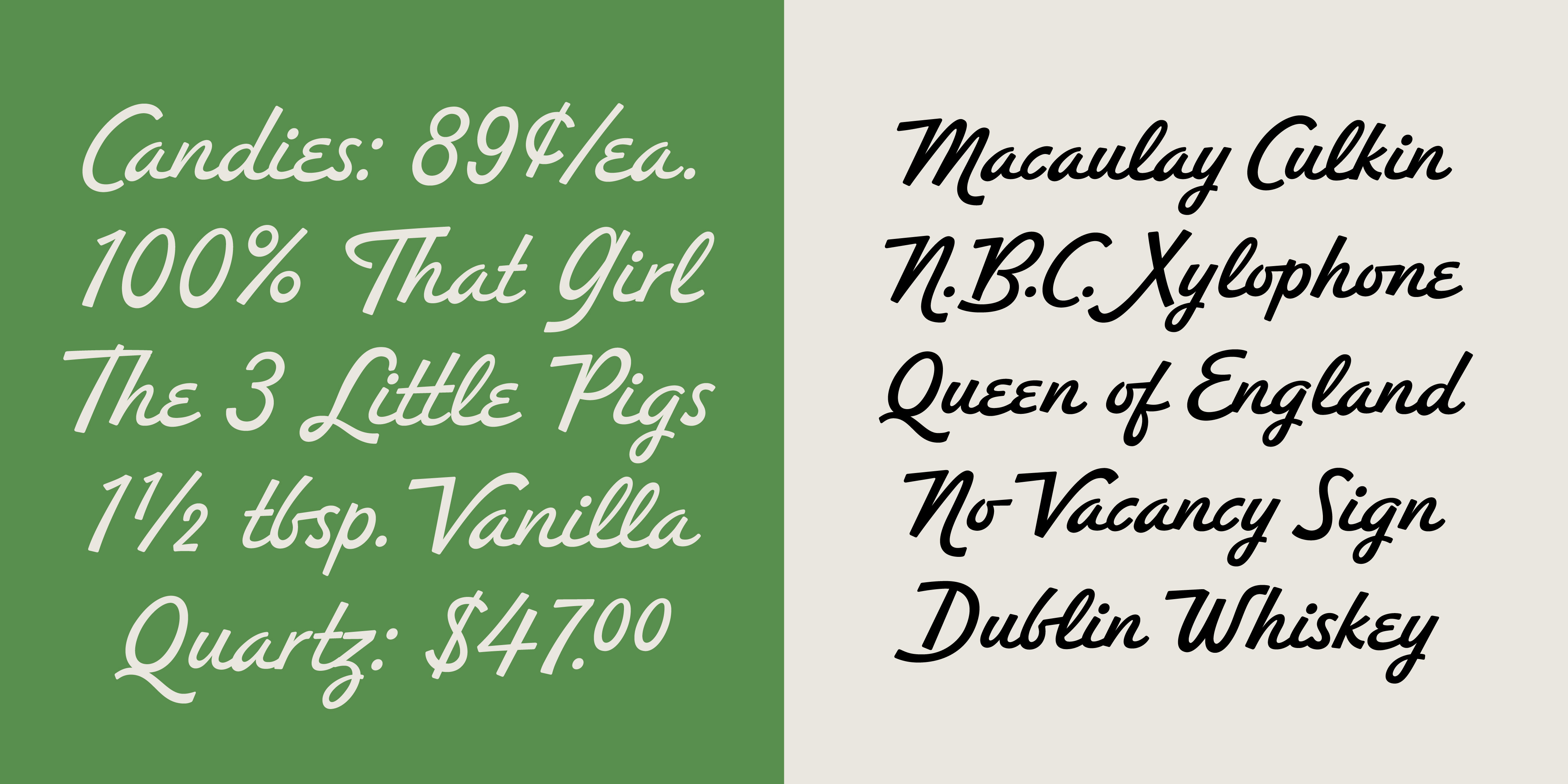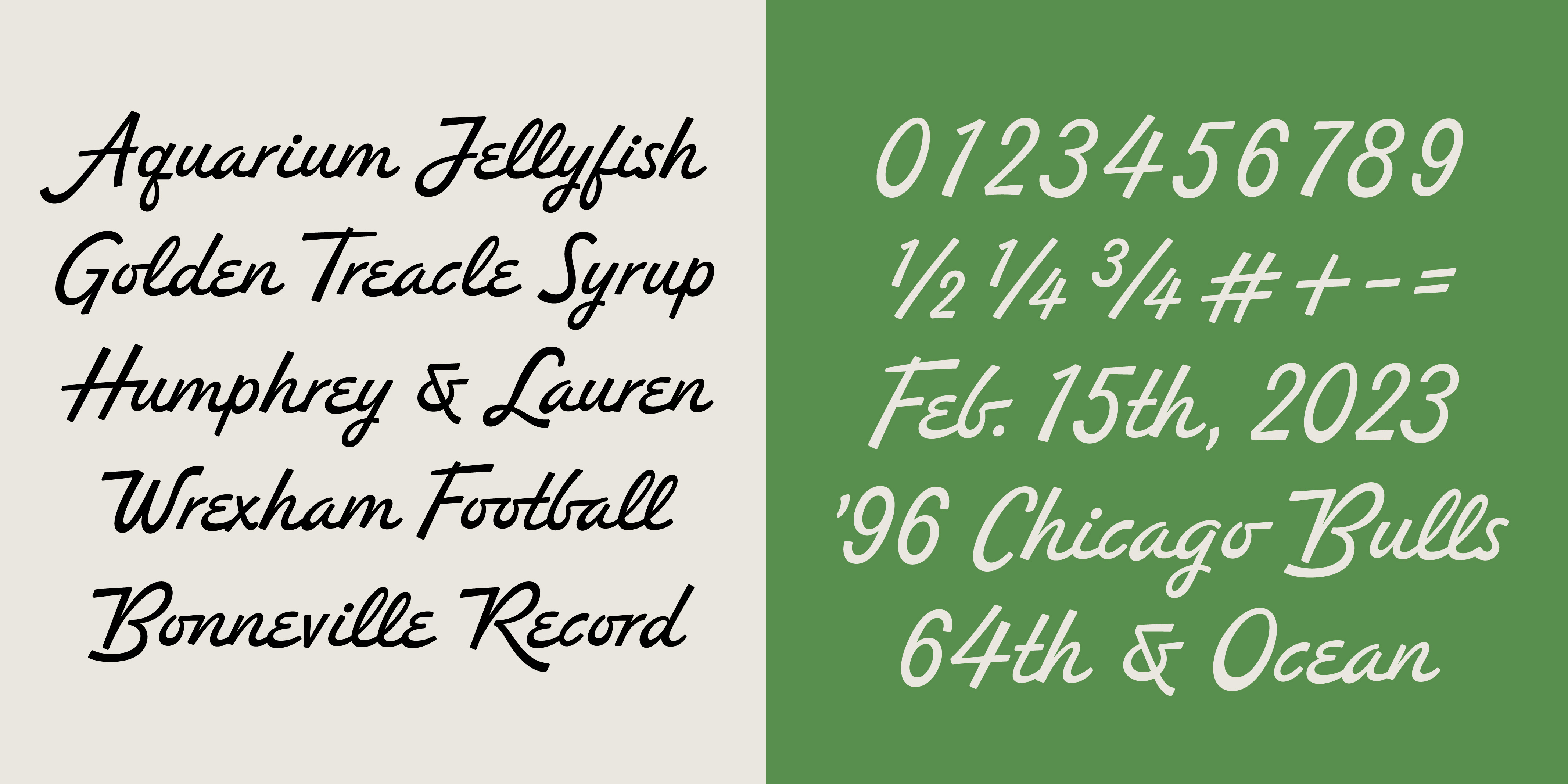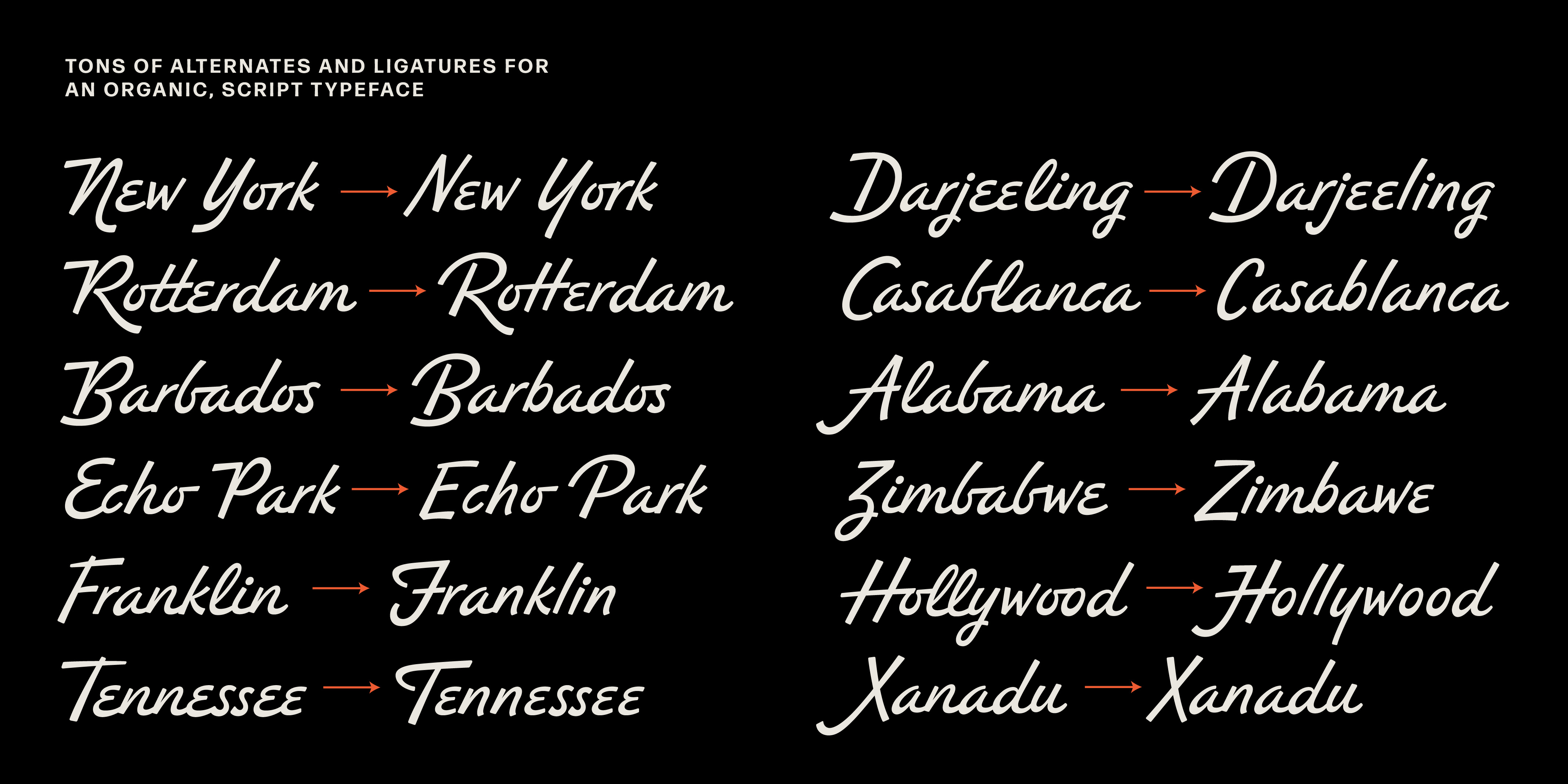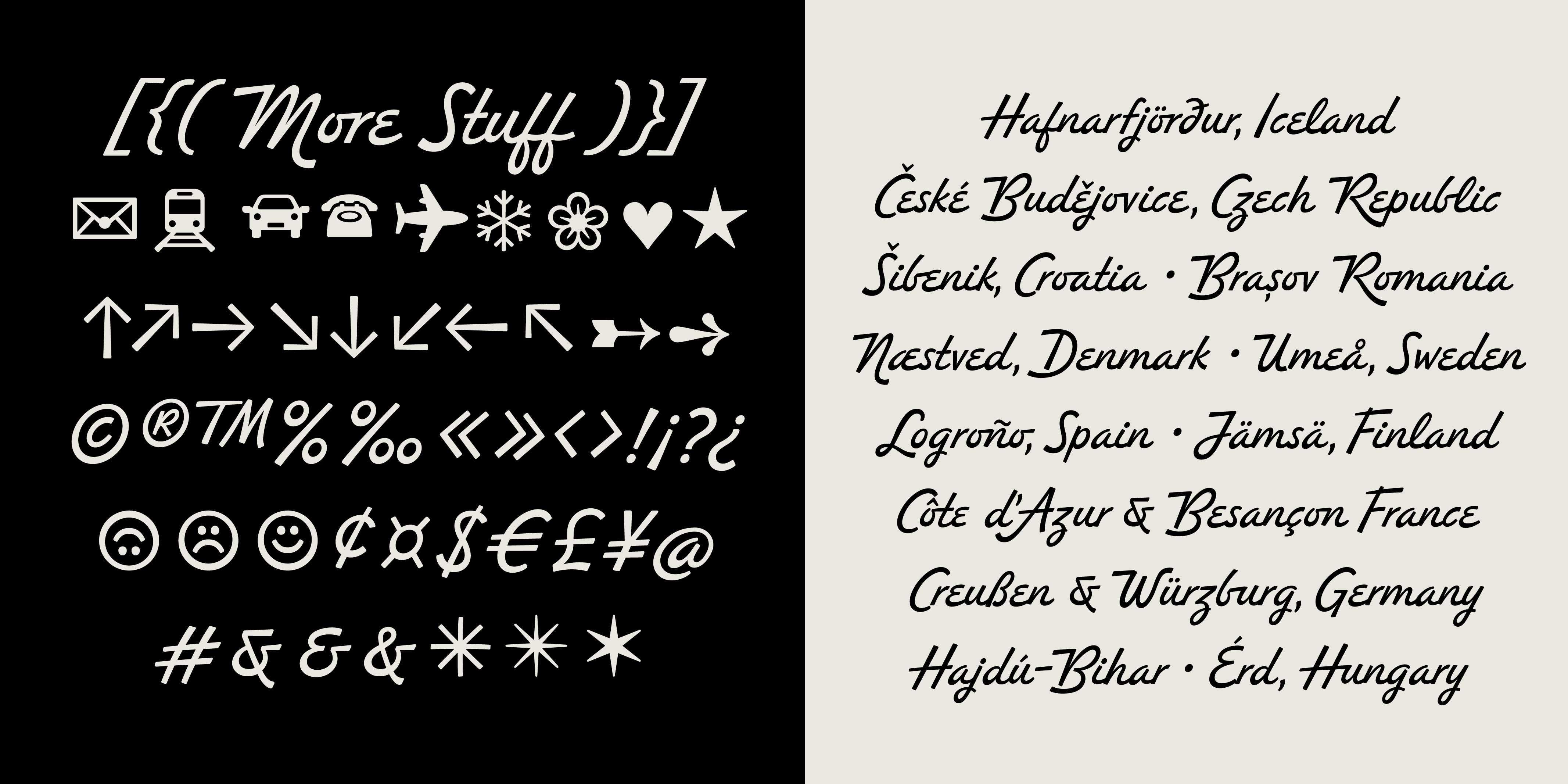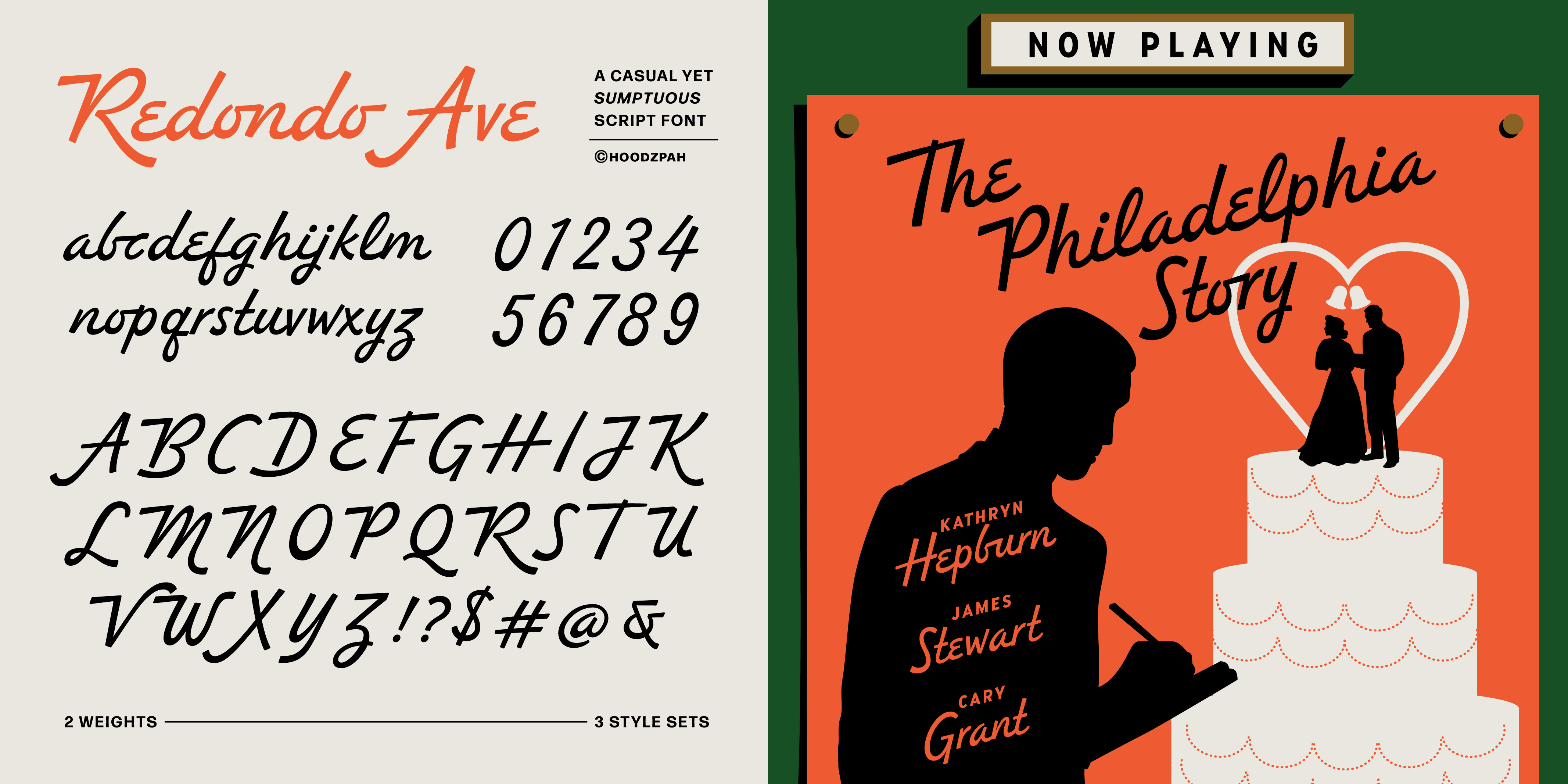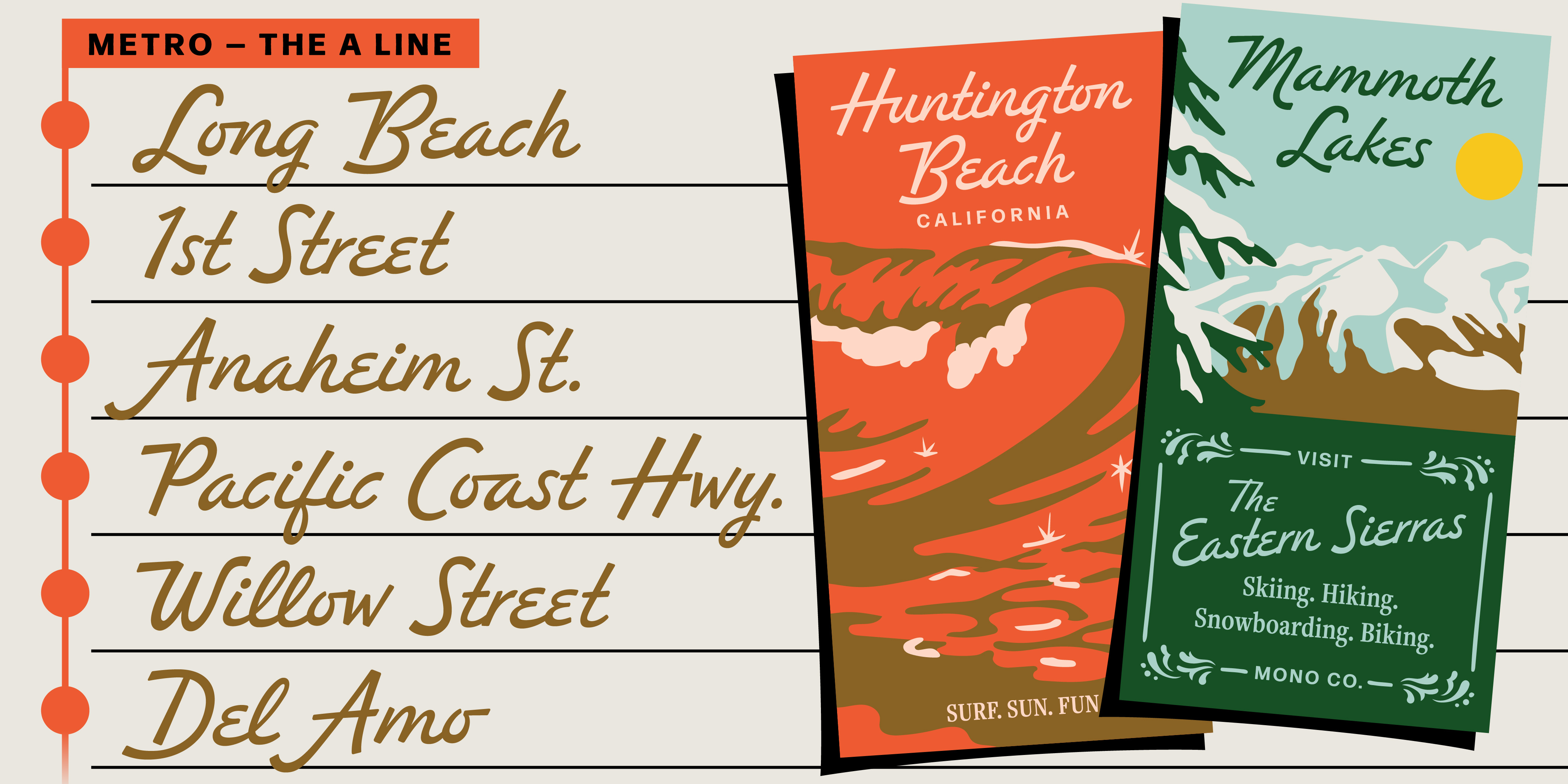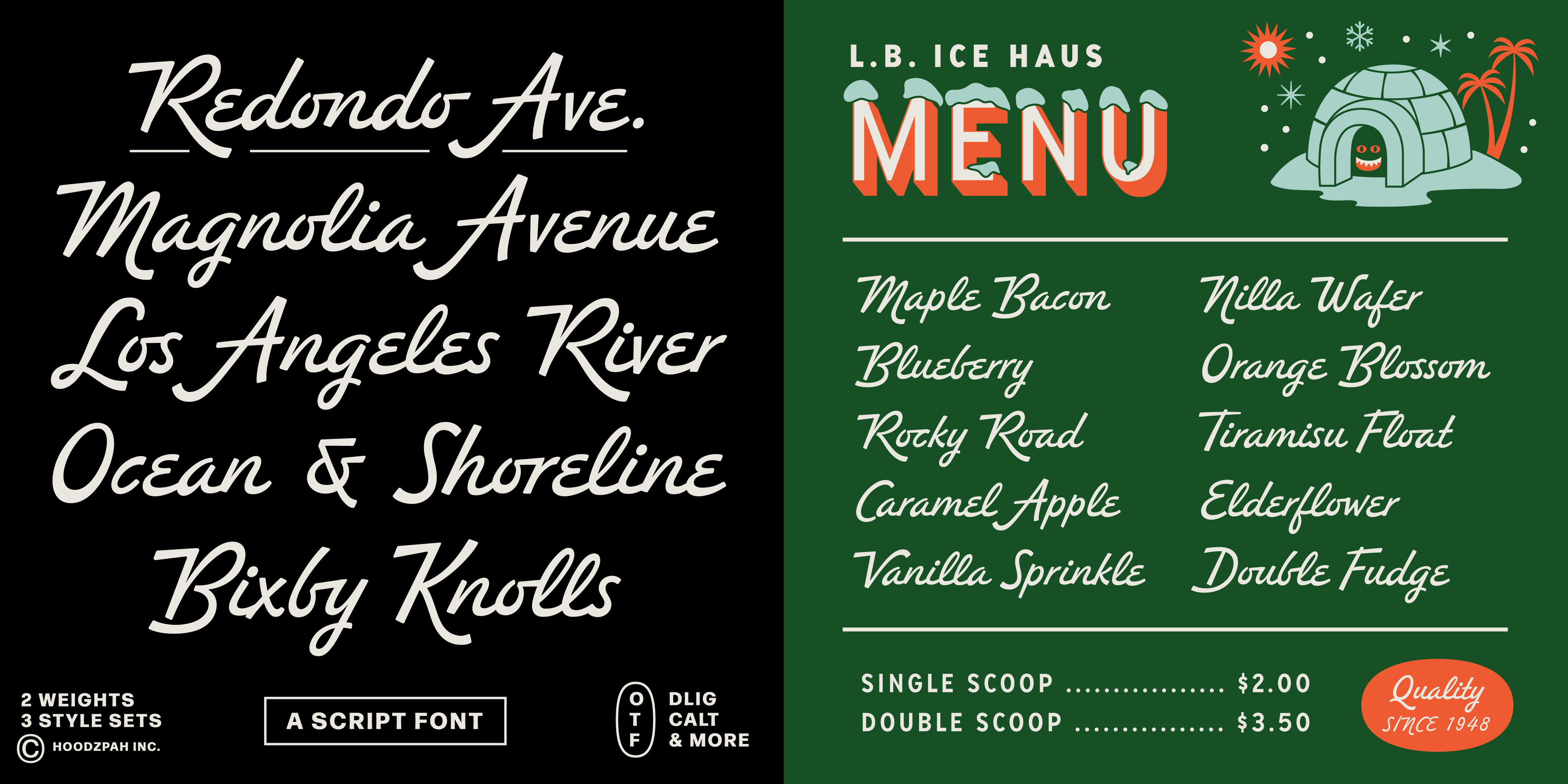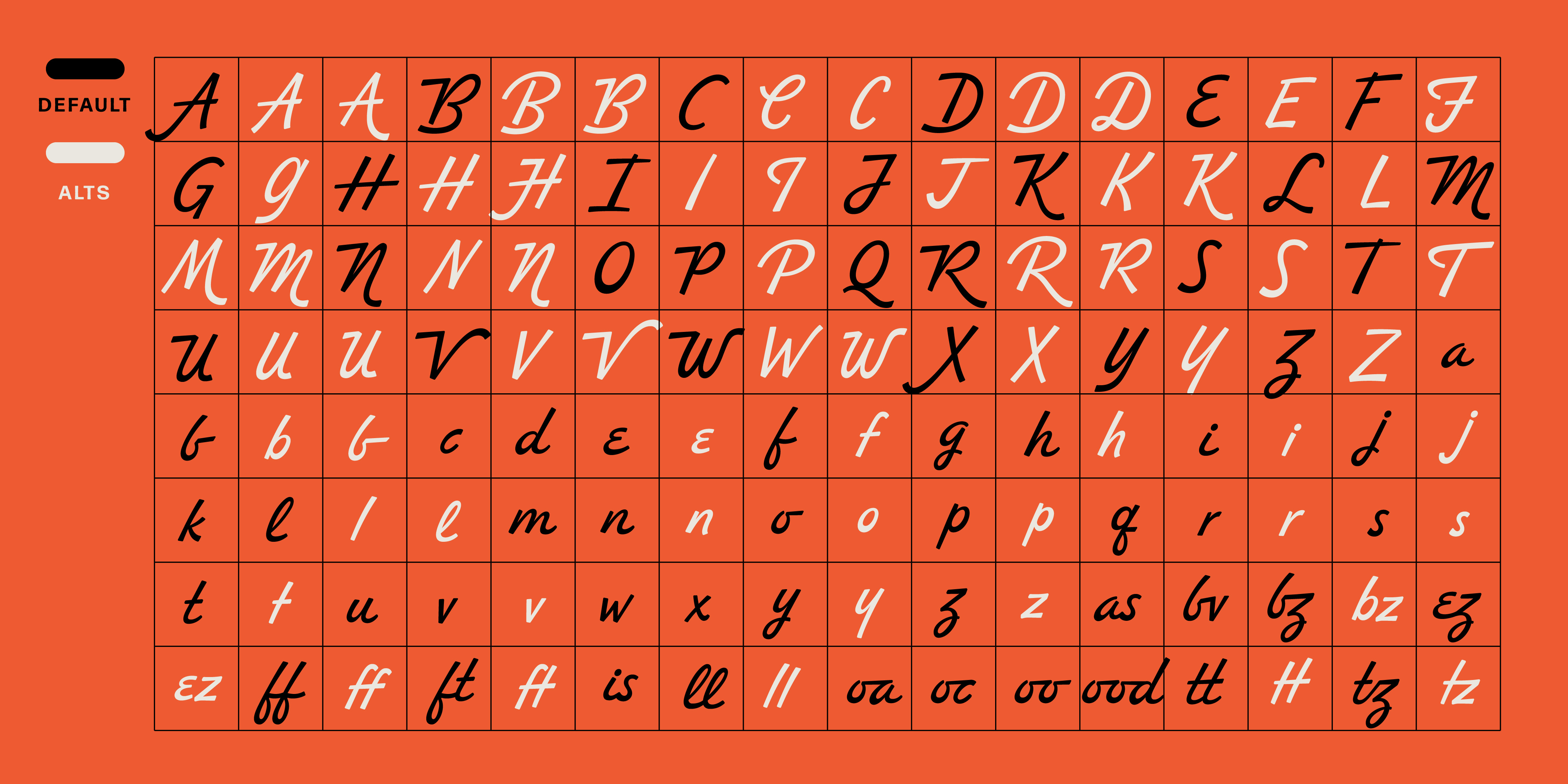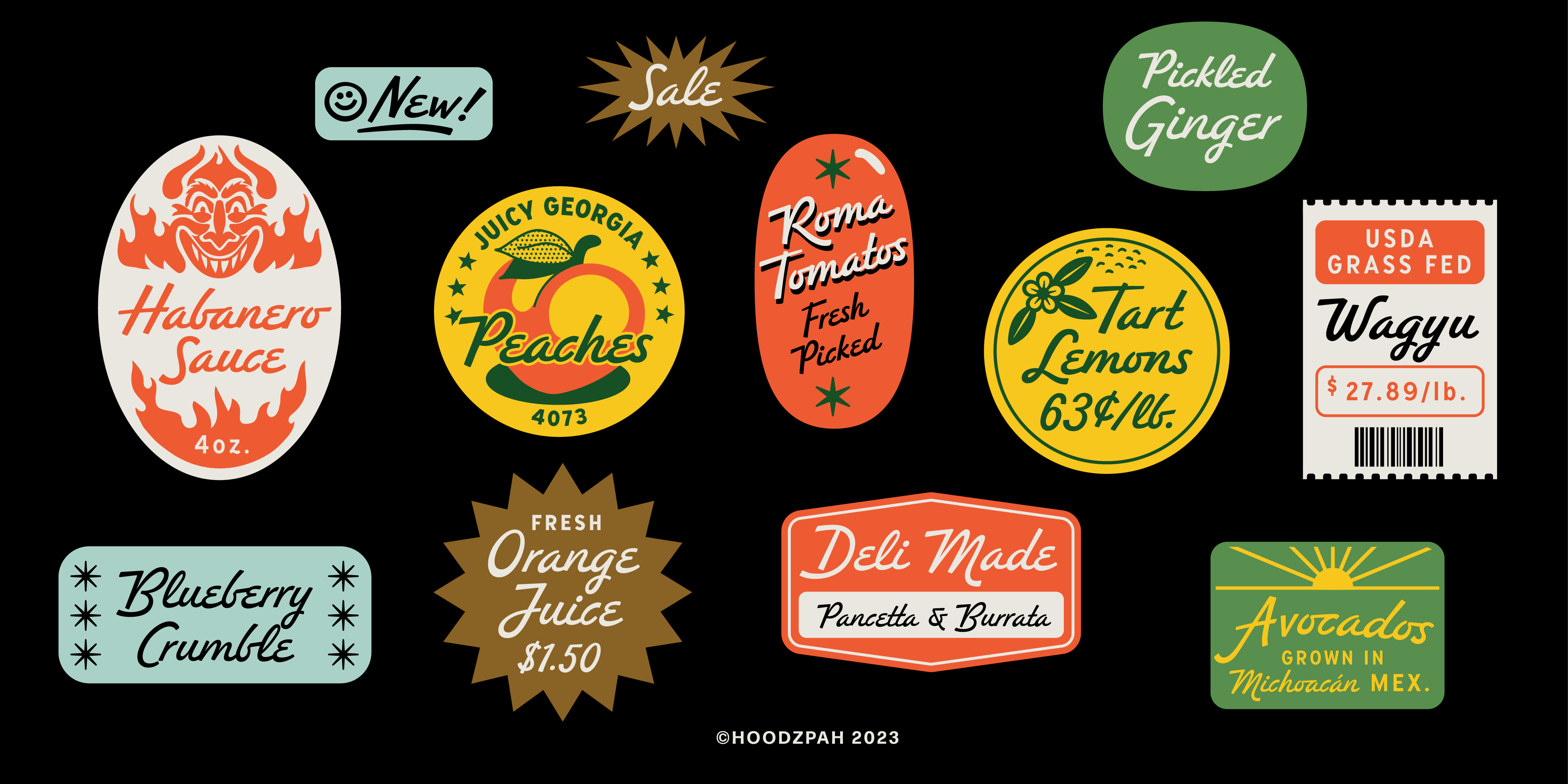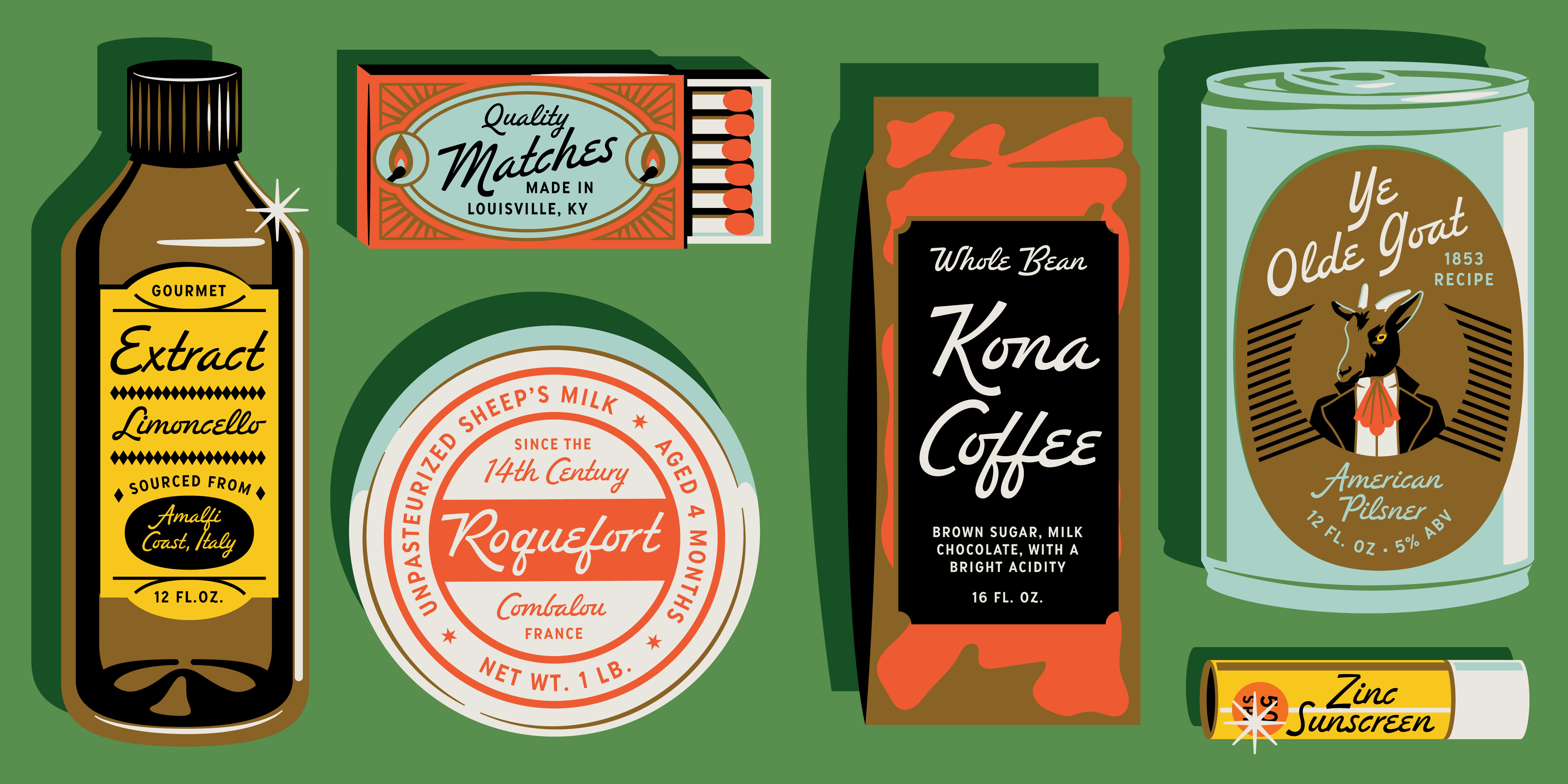
Redondo Ave
Redondo Ave script font heralds all the sun-drenched vibes of the West Coast in a charming and unpretentious package. The typeface features tons of alternates and swashes for added personality. Plus fun extra dingbats to round out your designs.